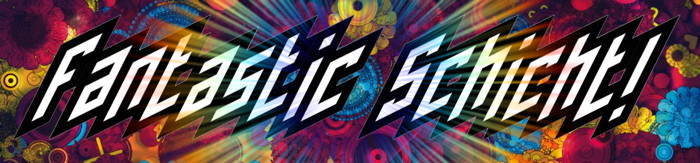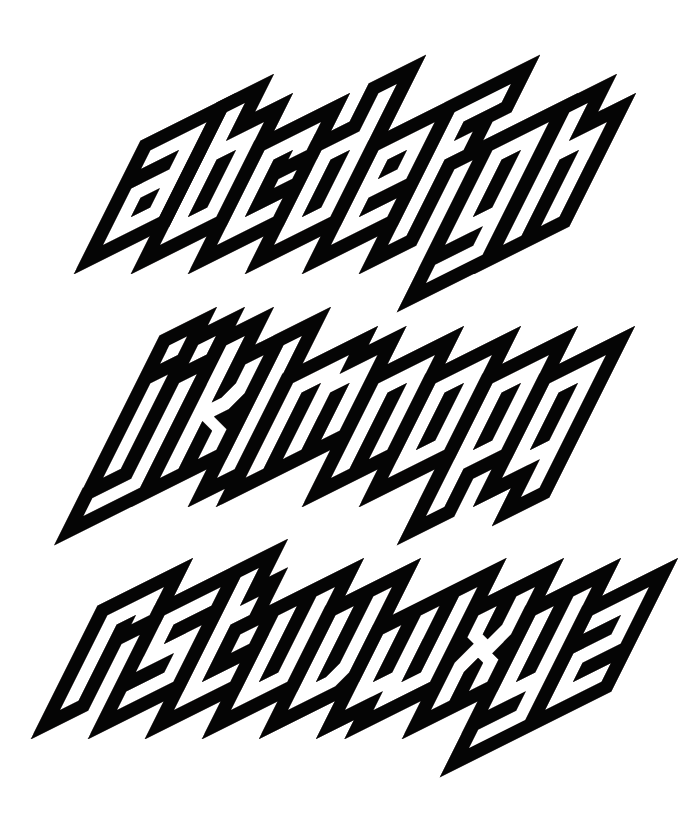
S.L.A.N.T.E.D.!
I love how you managed to make a distinction between u and v in this one. I figure that was not easy...
Electric! 10/10
Razors.
Sharp!
Slanted letters lean forward just about the optimal angle for clarity and comfortable reading. The sharp tips of outlines create serrated edges at the top and the bottom. The chaotic rhythm of letters, especially with the lower case, makes Schicht a vibrant display font. Needless to say, you have evaded any potential kerning issues by opting for partial overlap of adjacent glyphs and leaving virtually no gaps in between. Even though it is designed for short snippets of text, headlines, titles, etc., some basic punctuation (comma, period, hyphen) would be useful. Great design. 10/10
I'm in love with it!
B looks like 8
How many unique bricks are in your fonr and how big is each letter.
How many bricks are in this font?
Looks like the mountain dew logo tbh